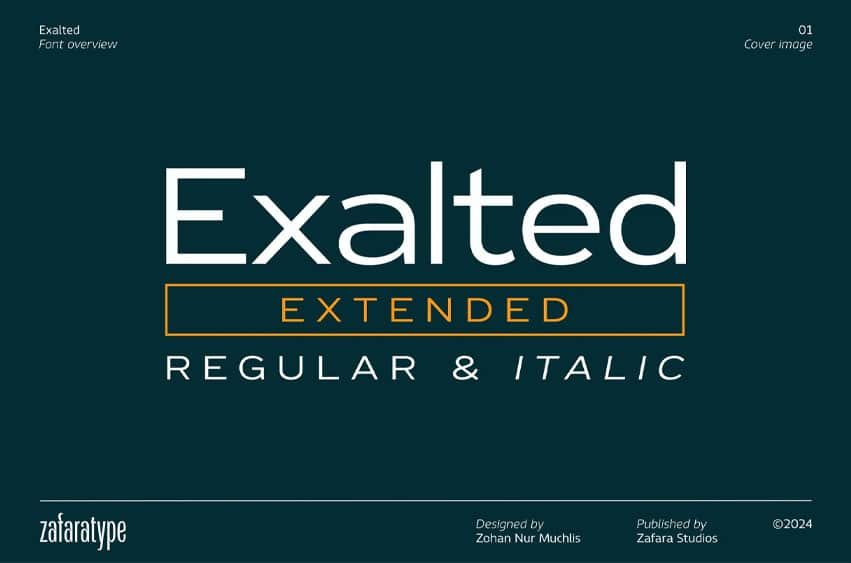
Exalted Extended Font is a geometric font that embodies strength and clarity. Defined by its clean lines and sharp angles, creating a sense of precision and power. Exalted features bold, geometric forms inspired by circles, squares, and triangles, with a uniform stroke width emphasizing the clean structure of the letters.
Exalted Extended can fulfill all types of needs such as editorial design, branding, graphic design, signage, logos, apps, websites, eBooks, print media such as flyers, brochures, magazines, and all kinds of purposes that are suitable for this font.